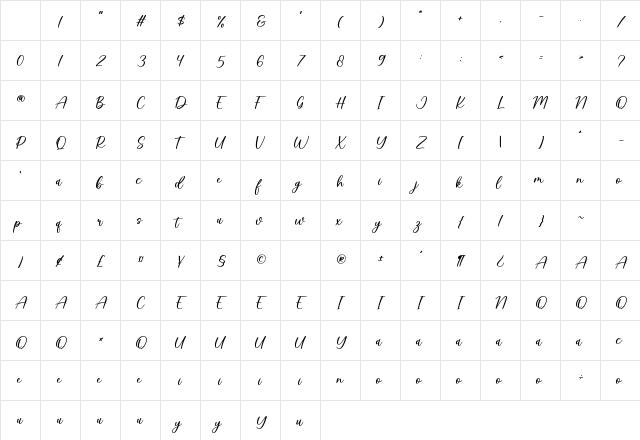
Complete Lavender Regular glyph index. Displaying only characters natively supported by Lavender Regular font.
Lavender is a composed and adaptable typeface that performs quietly and consistently across a wide range of design contexts.